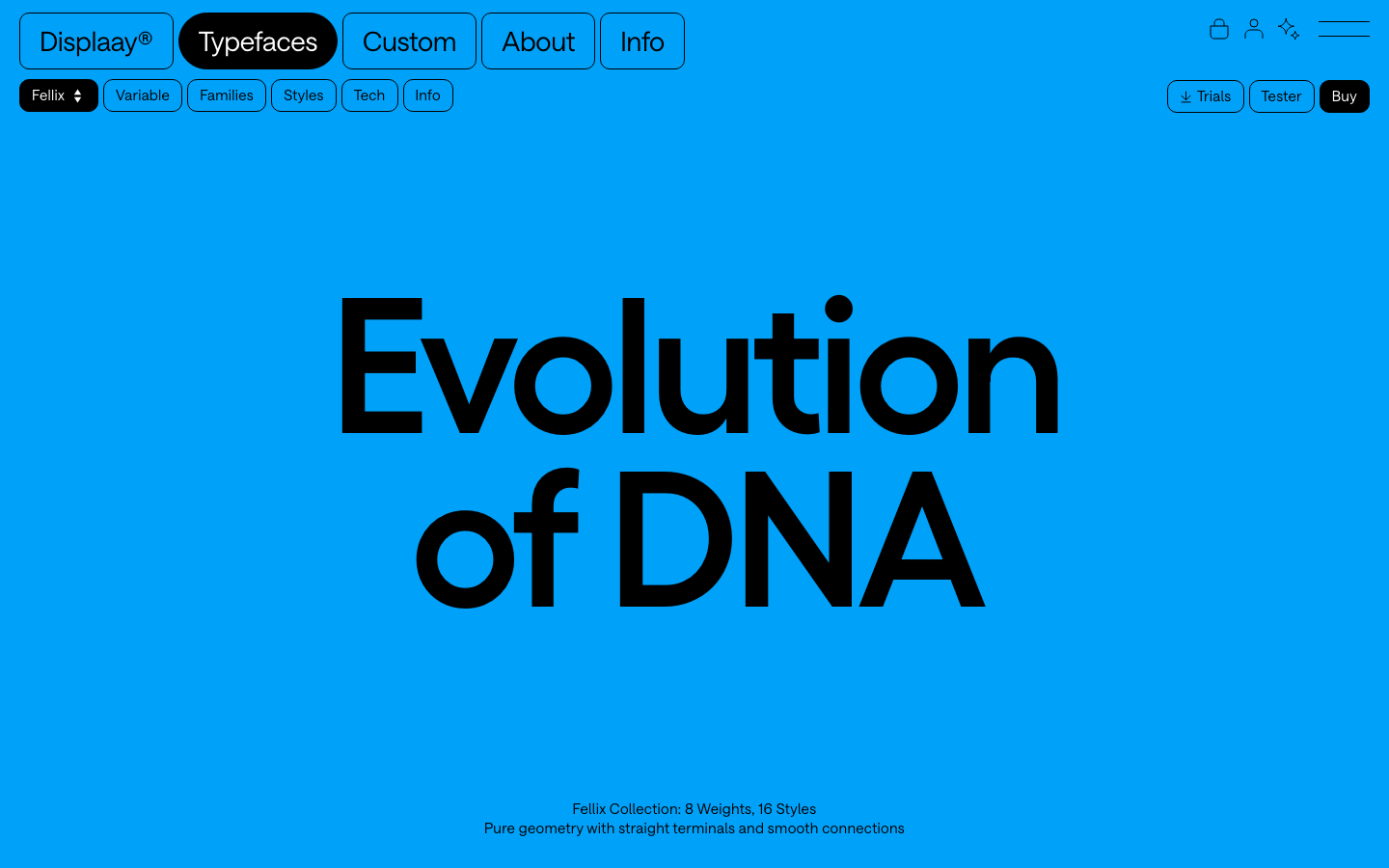
Circular vs Fellix
Circular and Fellix are both sans-serif typefaces sharing a geometric foundation. Where Circular leans tech, monoline, Fellix brings minimal. Compare which suits your Apps project.
| Feature | Circular | Fellix |
| Source | Lineto | Displaay |
Recommended: Circular
- tech, monoline design character
- Suited for Tech and Startups
- From lineto
Consider: Fellix
- minimal design character
- Suited for Ui and Packaging
- From displaay